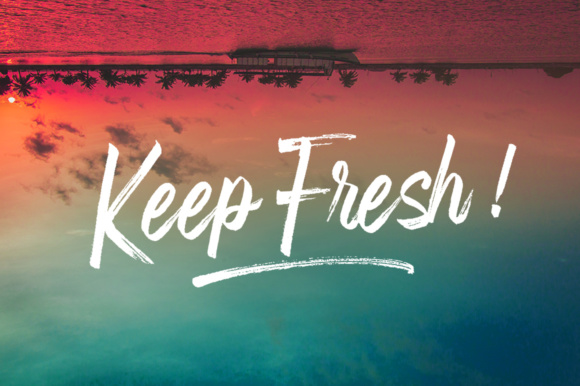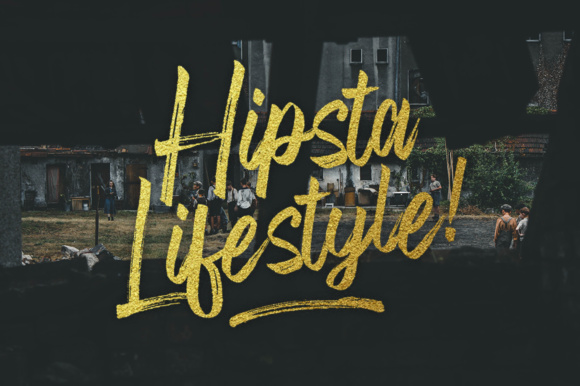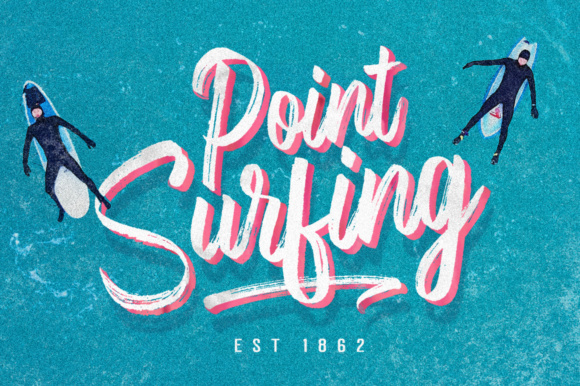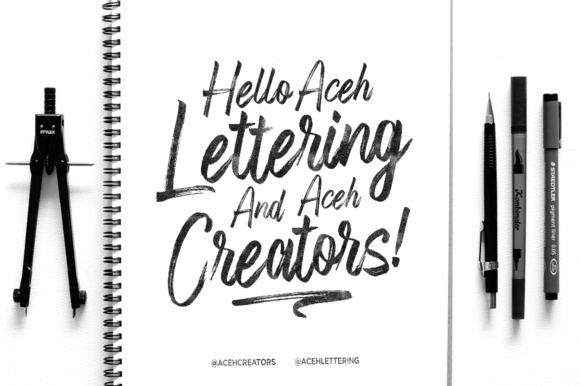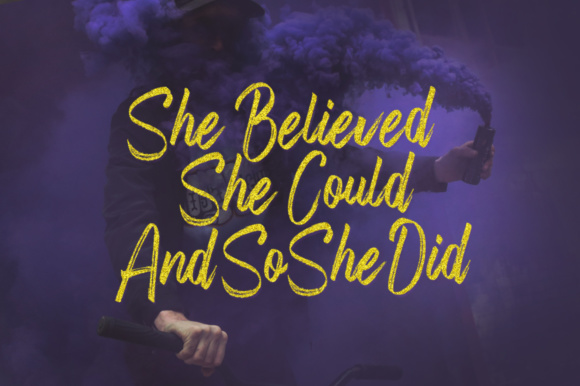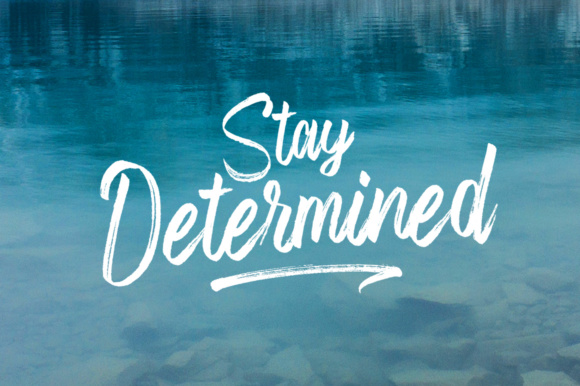
Unleashing the Magic of Handmade Typography
Have you ever stared at a blank page, waiting for inspiration to strike? The cursor blinks, and your mind goes blank. Suddenly, a quirky idea pops up – a handwritten font that transports you to a whimsical world of creativity. This is exactly what happens when designers discover the Fronds Getturing Font, a textured brush font that adds a personal touch to any design.
Handmade with love, Fronds Getturing Font is perfect for title designs or quotes, invitations, stationery, and branding. Its irregular baseline and organic feel make it stand out from the crowd, adding a unique touch to any project. For designers, this font is a valuable addition to their toolkit, allowing them to create eye-catching designs that evoke emotions and tell stories.
Fronds Getturing Font Key Features
- Font Family: Fronds Getturing Font, a unique, hand-drawn script font designed to evoke a sense of whimsy and elegance.
- Unique Characteristics: The Fronds Getturing Font features intricate, swirling patterns and ornate details, making it a standout choice for designers seeking a distinctive, eye-catching look.
Fronds Getturing Font Review
Overall, I’d say that “Fronds Getturing Font” is an interesting addition to any digital project. ✨ The designer has put a lot of thought into the unique, organic feel of the font, which is sure to capture attention. The combination of flowing lines and natural shapes creates a sense of movement and fluidity that’s hard to find in other fonts.
Here are a few things that work particularly well:
- ✨ The font’s versatility: it can be used for a wide range of projects, from branding to editorial content.
- ✨ The level of customization: users can adjust the font’s size, color, and style to fit their specific needs.
- ✨ The unique aesthetic: the font’s natural, hand-drawn feel sets it apart from more generic fonts.
- ⚠️ The font may be difficult to read in certain situations, particularly when used in small sizes or at high resolutions.
- ⚠️ The font’s unique aesthetic may not be suitable for all types of projects or audiences.
Overall, I’d recommend “Fronds Getturing Font” to designers and developers who are looking for a unique and eye-catching font for their projects. With a little care and attention to detail, this font can add a lot of value to any digital project.
Getting the Most Out of Fronds Getturing Font
Use Fronds Getturing Font for creative and whimsical designs. It pairs well with bold colors and playful graphics. Experiment with different font sizes and styles to add visual interest.
Use Fronds Getturing Font for:
1. Social media graphics and posts.
2. Wedding invitations and stationery.
3. Children’s book illustrations and designs.
4. Branding and logo design.
Alternatives to “Fronds Getturing Font” for Designers
Lato is a modern sans-serif font that is highly legible and versatile. It’s perfect for use in digital designs, such as websites and mobile apps, where readability is crucial. Lato is also great for use in print materials, such as brochures and business cards, where a clean and modern look is desired. Compared to Fronds Getturing Font, Lato is more neutral and doesn’t have the same level of whimsy, making it a great choice for designs where a more professional tone is needed.
Playfair Display is a luxurious serif font that is perfect for use in high-end designs, such as luxury brands, weddings, and special occasions. It’s great for use in headings and titles, where a touch of elegance is desired. Compared to Fronds Getturing Font, Playfair Display is more formal and sophisticated, making it a great choice for designs where a sense of luxury is needed.